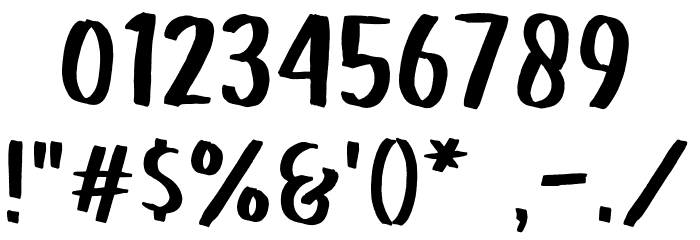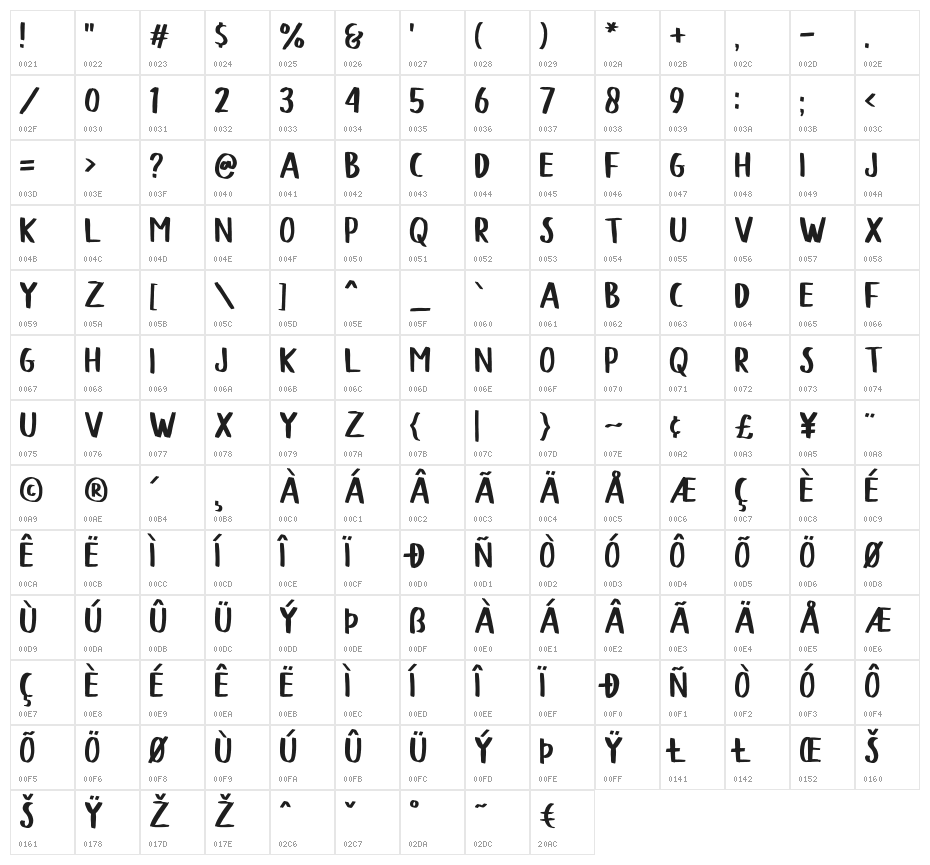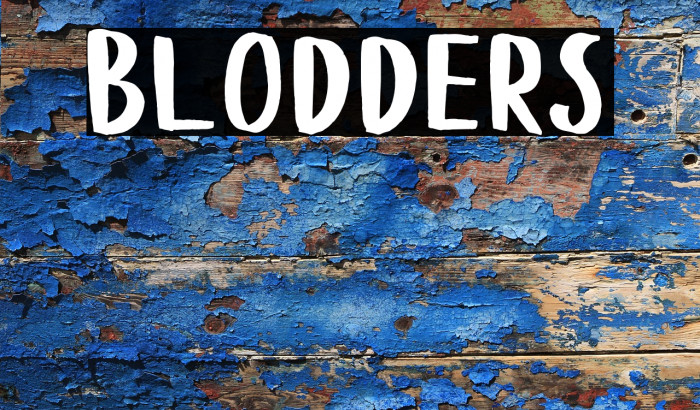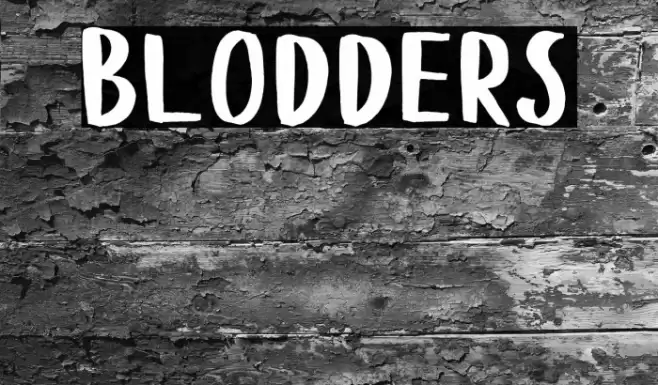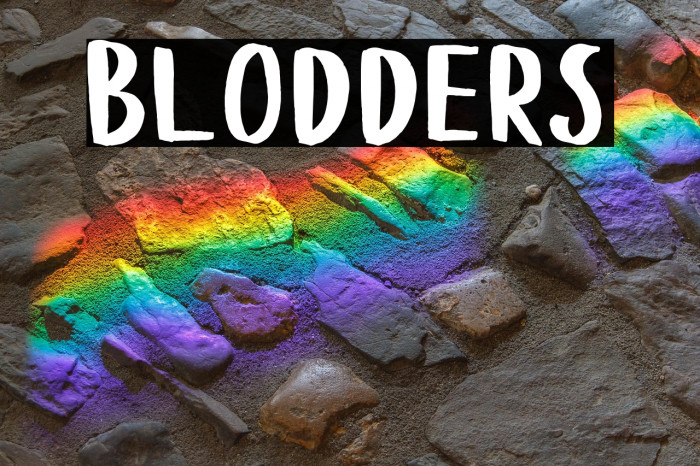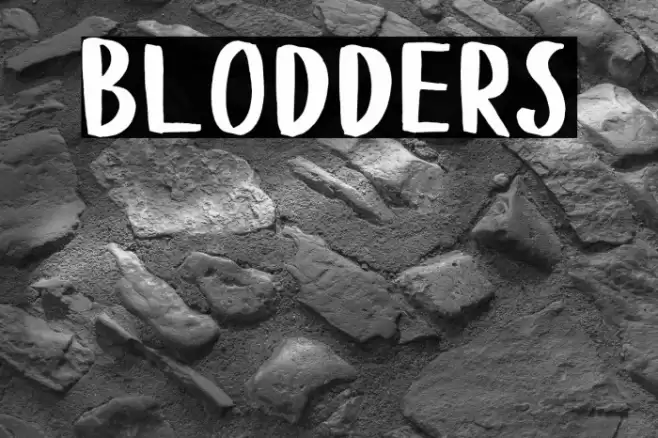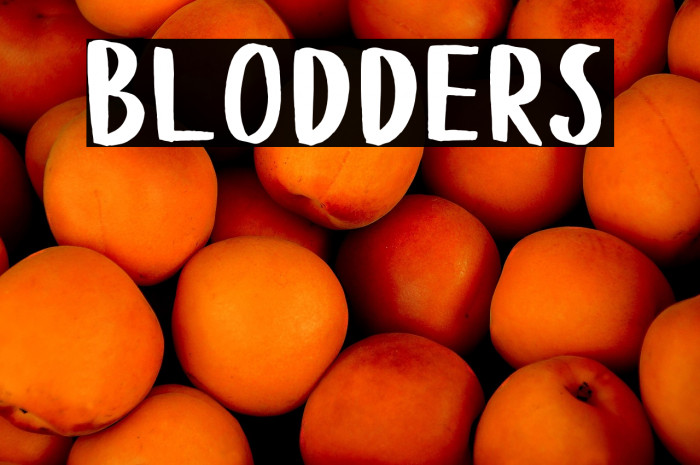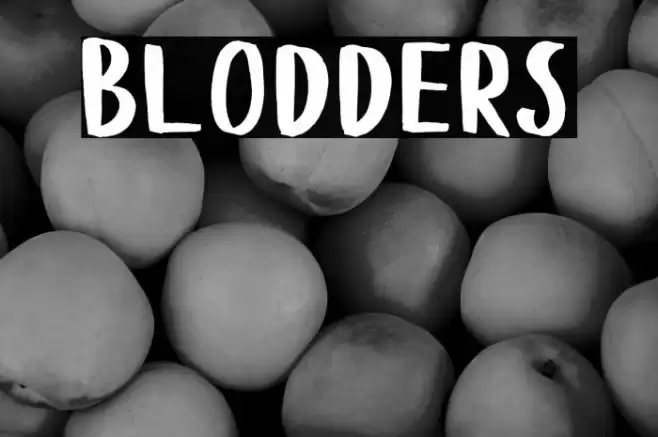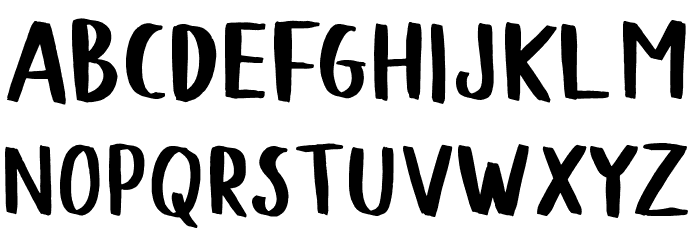
Blodders Font
Blodders Description
This font features a bold and expressive handwritten style, characterized by its thick strokes and slightly irregular shapes that give it a lively and dynamic appearance. The uppercase and lowercase letters maintain a consistent weight, creating a harmonious flow across text. The numerals and special characters are crafted with the same boldness, ensuring readability and impact. Its playful yet assertive design makes it suitable for projects that require a personal touch or a statement piece. The font's informal and artistic nature lends itself well to creative and casual applications.